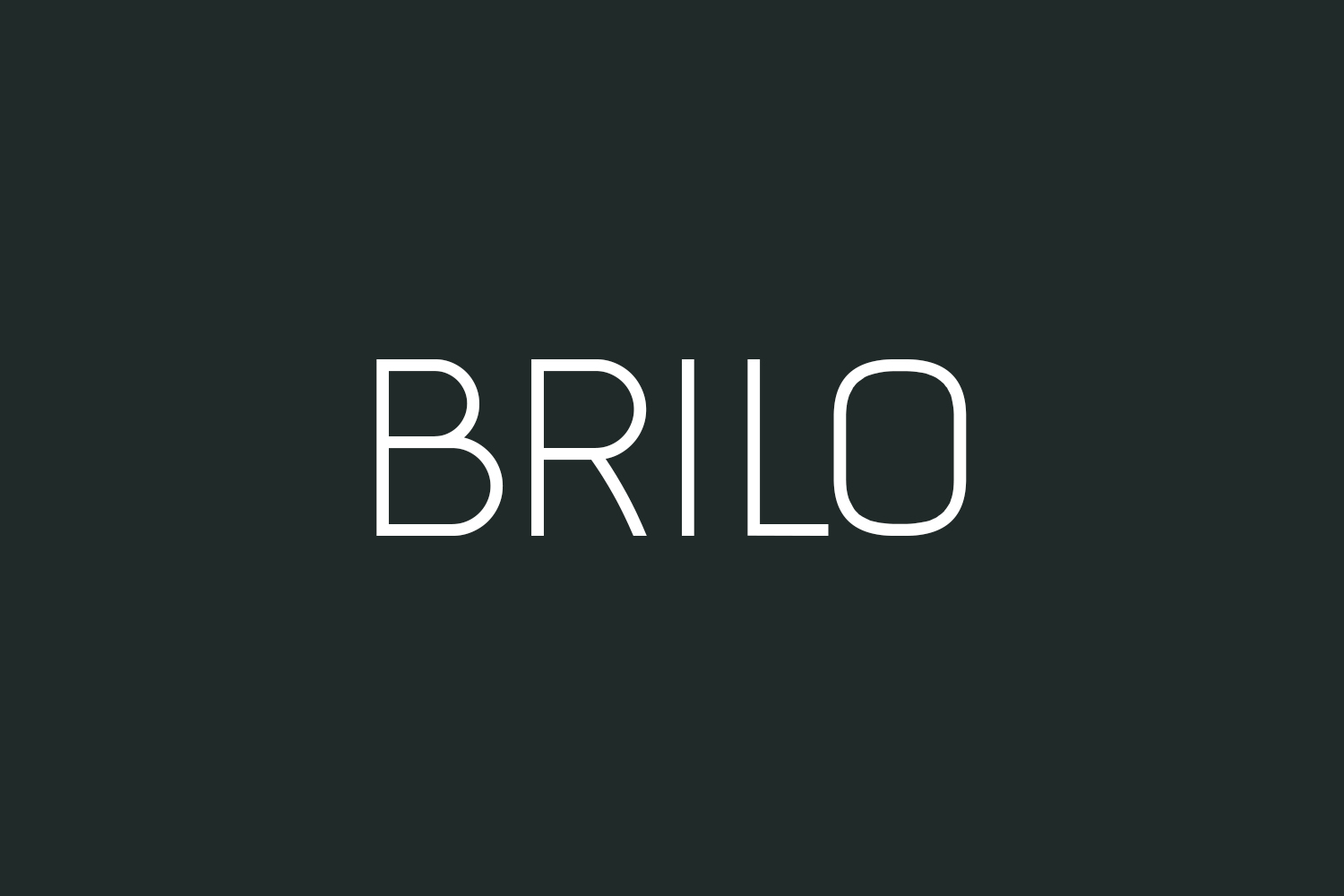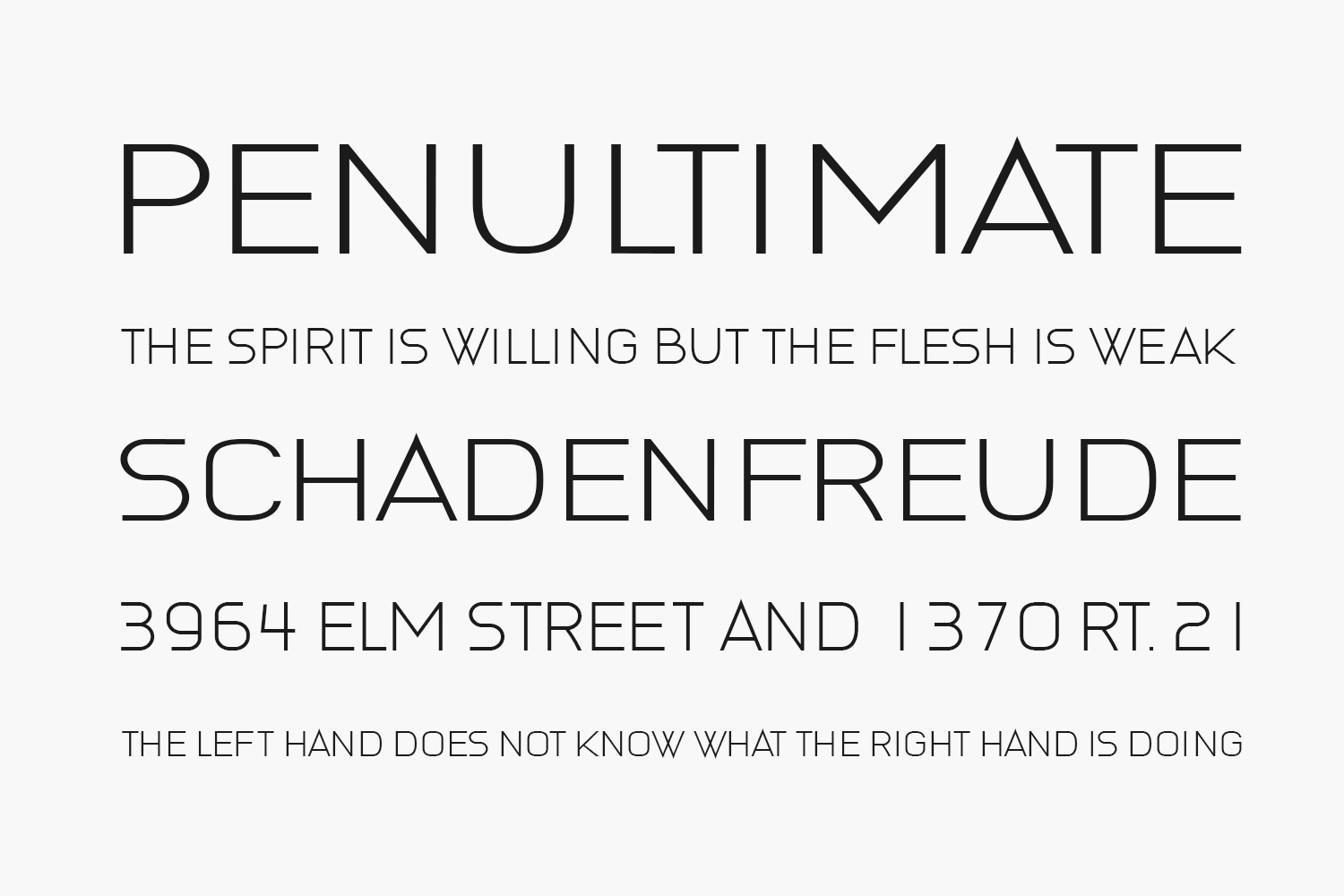
Brilo Free Font is an awesome sans serif typeface that will look stunning on any of your designs. Use this font on banners, headlines, and posters. Brilo Free Font was designed by Vladimir Nikolic and is free for personal use only. Please purchase the full version for commercial use.
Designed by Vladimir Nikolic